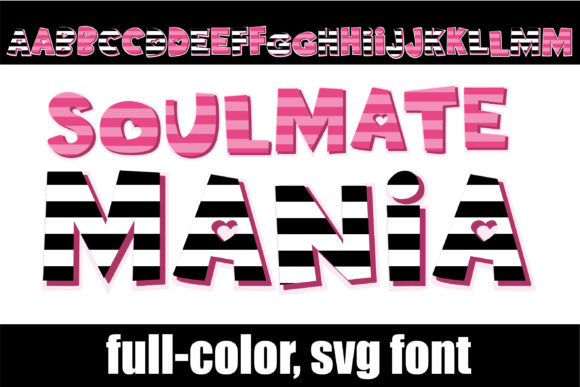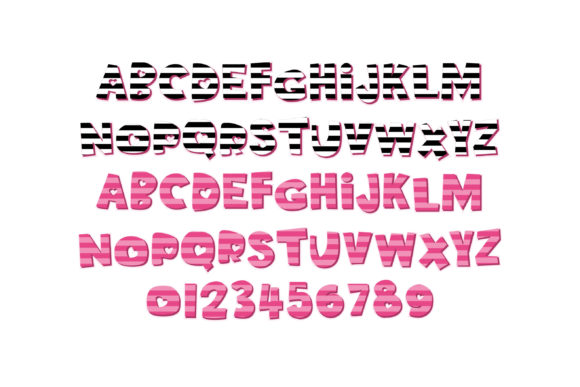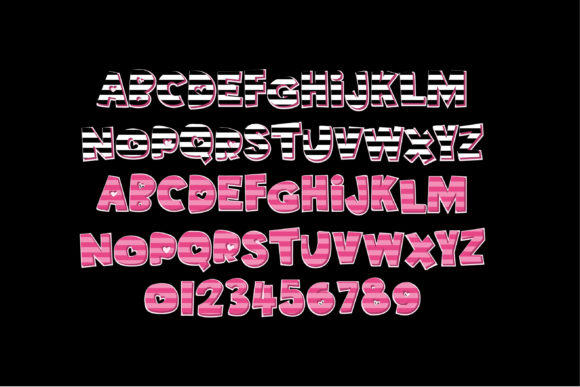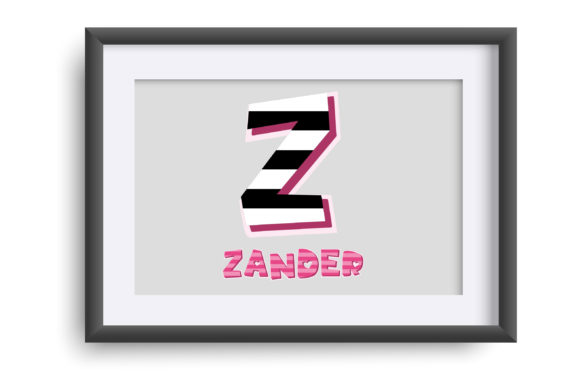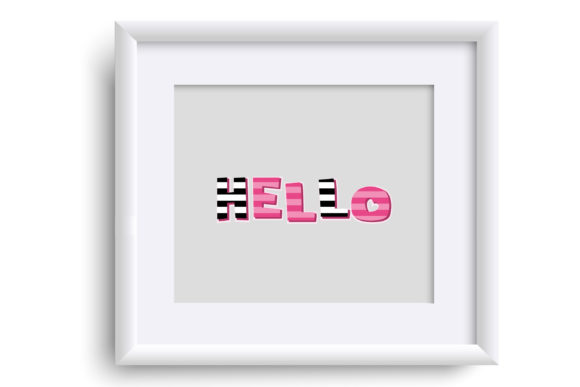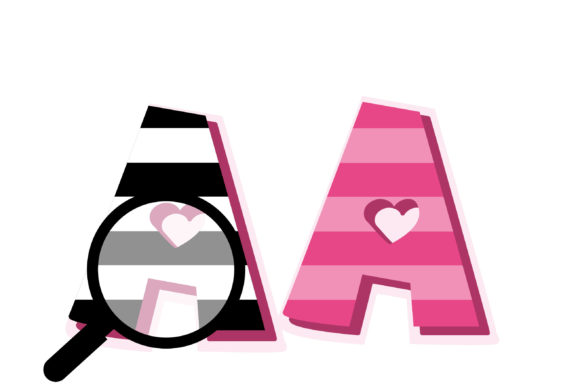
Soulmate-mania Font
Introducing a captivating full-color font with heavy slab lettering in a beautiful duo of pinks. This font is designed to make a bold statement and add a touch of elegance to your projects.
The heavy slab lettering in this font gives it a strong and commanding presence, while the duo of pinks adds a touch of femininity and sophistication. The combination of these elements creates a visually appealing contrast that will make your designs stand out.
Whether you’re working on branding materials, posters, invitations, or any other creative project, this full-color font will make a lasting impression. Its heavy slab lettering provides a sense of solidity and stability, while the vibrant pinks add a playful and eye-catching element.
Embrace the beauty and versatility of this full-color font and let your creativity shine. Experiment with different sizes, styles, and color combinations to create visually striking designs that leave a lasting impact on your audience.